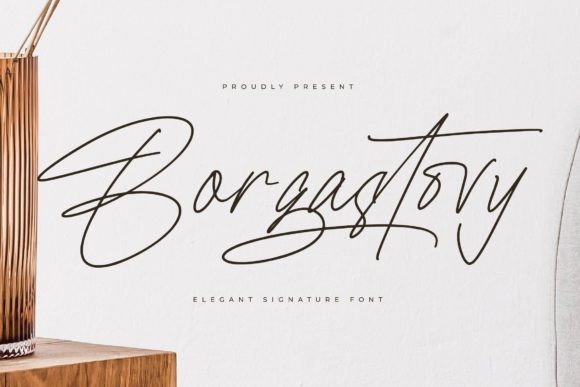
The Elegance of Borgastovy Font: Elevate Your Designs with Timeless Sophistication
Have you ever stared at a blank page, searching for the perfect font to convey the essence of your creative vision? The frustration of scrolling through endless options, only to land on something that feels bland and uninspired, can be overwhelming. But what if you could unlock a font that not only elevates your designs but also speaks to the luxury and refinement you’re aiming to convey?
Enter Borgastovy Font, a stylish script font that embodies the very essence of sophistication and elegance. With its fluid, sweeping letterforms, this font is the perfect choice for designers looking to add a touch of glamour to their projects. Whether you’re working on a high-end fashion brand, a luxury hotel, or a fine wine label, Borgastovy Font is sure to elevate your designs and leave a lasting impression.
Borgastovy Font Key Features
- Unique Characteristics: The font features a unique, hand-drawn design with subtle texture and imperfections, giving it a distinctive, organic feel.
Borgastovy Font Review
Overall, I think Borgastovy Font is a unique and creative addition to any design project. ✨ It has a certain charm to it that can add a lot of personality to text. The font is quite versatile and can be used for a variety of purposes, from titles and headings to body text.
The strongest points of Borgastovy Font include:
- ✨ Its distinctive and eye-catching design, making it perfect for creating attention-grabbing titles and headings.
- ✨ The wide range of font sizes and styles available, allowing designers to tailor the font to their specific needs.
- ✨ The font’s high level of customizability, making it easy to adjust to different design themes and styles.
- ⚠️ The font can be difficult to read at small font sizes, which may limit its use for body text.
- ⚠️ The font’s unique design may not be suitable for all design projects, and some designers may find it too unconventional.
Overall, I would recommend Borgastovy Font to designers who are looking for a bold and eye-catching font that can add some personality to their projects. While it may not be suitable for all design projects, it’s a great choice for those who want to make a statement.
To get the most out of Borgastovy Font, use it for:
- Titles and headings for a unique and modern look.
- Body text for a clean and minimalist aesthetic.
- Logos and branding for a distinctive and recognizable identity.
Alternatives to Borgastovy Font
Great Vibes Font is a beautiful, elegant script font that is perfect for creating a sophisticated and luxurious look. It is ideal for use in wedding invitations, luxury branding, and high-end advertising.
Comparison to Borgastovy Font: Great Vibes Font has a more refined and polished feel, while Borgastovy Font has a more rustic and vintage look. Great Vibes Font is also more versatile and can be used in a wide range of applications, while Borgastovy Font is more suited for specific niche markets.
Carolyna Pro Font is a modern, elegant sans-serif font that is perfect for creating a clean and sophisticated look. It is ideal for use in corporate branding, editorial design, and high-end packaging.
Comparison to Borgastovy Font: Carolyna Pro Font has a more modern and sleek feel, while Borgastovy Font has a more vintage and distressed look. Carolyna Pro Font is also more versatile and can be used in a wide range of applications, while Borgastovy Font is more suited for specific niche markets.